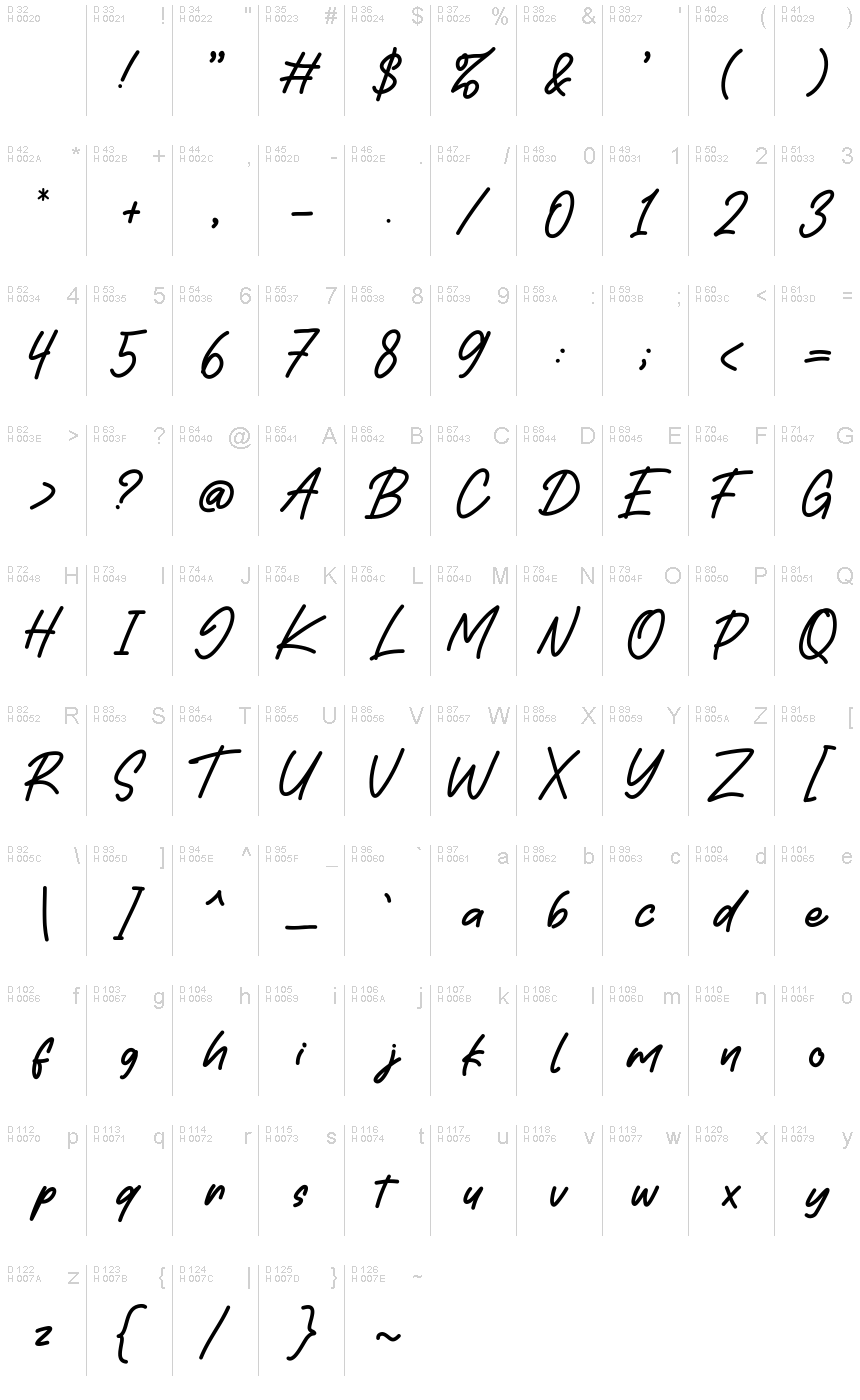
Golstyno
Golstyno, a captivating handwritten font crafted by Aisyah, exudes a natural, organic charm that effortlessly captures the essence of handcrafted artistry. With its flowing lines, gentle curves, and an inviting calligraphic flair, this font radiates a sense of warmth and authenticity, making it a delightful choice for projects seeking a personalized, heartfelt touch.
Golstyno's versatility shines through its ability to adapt to a wide range of design applications, from elegant stationery and wedding invitations to rustic branding and editorial layouts. Its expressive strokes and distinctive character lend themselves beautifully to projects that aim to convey a sense of handmade craftsmanship, artisanal charm, or a personal, heartfelt message.